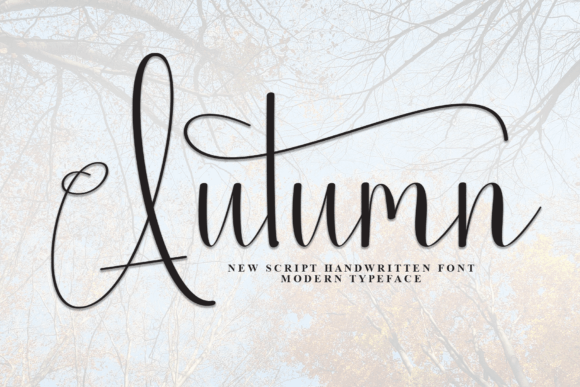
Introducing Autumn Font: The Sweet and Friendly Handwritten Display Font
Are you looking for a font that can add a touch of warmth and playfulness to your creative projects? Look no further than Autumn Font, a charming handwritten display font that’s perfect for designers and crafters who want to infuse their work with a dose of delightful cheer. In this article, we’ll explore the features and benefits of Autumn Font, and show you how to make the most of this beautiful font in your designs.
The Charm of Autumn Font
Autumn Font is a sweet and friendly handwritten display font that’s designed to capture the essence of the season. With its cute and fun aesthetics, this font is sure to stand out from the crowd and add a touch of personality to your designs. Whether you’re creating wedding invitations, personalized cards, or any other type of design project, Autumn Font is the perfect choice.
One of the key features of Autumn Font is its unique and playful style. The font’s handwritten aesthetic gives it a warm and inviting feel, making it perfect for designs that require a personal touch. The font’s letters are carefully crafted to create a sense of movement and fluidity, giving your designs a sense of energy and playfulness.
Perfect for Wedding Invitations and Personalized Cards
Autumn Font is particularly well-suited for wedding invitations and personalized cards. The font’s sweet and romantic aesthetic makes it perfect for couples who want to add a touch of whimsy and charm to their wedding stationery. Whether you’re creating a formal or informal invitation, Autumn Font is sure to impress.
In addition to wedding invitations, Autumn Font is also perfect for personalized cards and gifts. Whether you’re creating a birthday card, a gift tag, or a personalized gift, this font is sure to add a touch of warmth and personality to your design.
Adding a Fun and Loving Touch to Your Designs
Autumn Font is more than just a font – it’s a way to add a fun and loving touch to your designs. The font’s playful aesthetic makes it perfect for designers and crafters who want to create unique and eye-catching designs. Whether you’re creating a design for a client or for your own personal project, Autumn Font is sure to bring a smile to people’s faces.
One of the best things about Autumn Font is its versatility. The font can be used for a wide range of design projects, from digital designs to print projects. Whether you’re creating a social media graphic, a blog post, or a print advertisement, Autumn Font is sure to add a touch of personality and whimsy to your design.
Tips for Using Autumn Font
Here are a few tips for using Autumn Font in your designs:
• Use Autumn Font as a display font to add emphasis and personality to your design.
• Pair Autumn Font with a simpler font to create contrast and visual interest.
• Experiment with different colors and textures to add depth and dimension to your design.
• Use Autumn Font to add a personal touch to your designs, such as in a handwritten-style caption or quote.
Autumn Font is a sweet and friendly handwritten display font that’s perfect for designers and crafters who want to add a touch of warmth and playfulness to their designs. With its cute and fun aesthetics, this font is sure to stand out from the crowd and add a touch of personality to your designs. Whether you’re creating wedding invitations, personalized cards, or any other type of design project, Autumn Font is the perfect choice. So why wait? Download Autumn Font today and start adding a fun and loving touch to your designs!